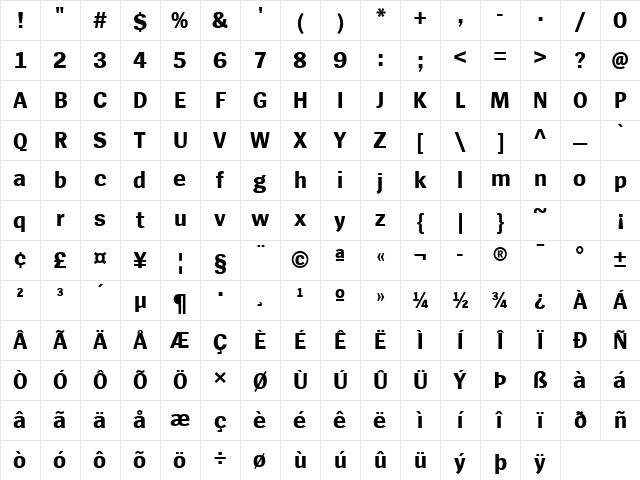
Complete Spiegel Bold glyph index. Displaying only characters natively supported by Spiegel Bold font.
Spiegel is a composed and adaptable typeface that performs quietly and consistently across a wide range of design contexts. Its bold stroke weight gives it real presence on the page.
Who designed the Spiegel Bold font?